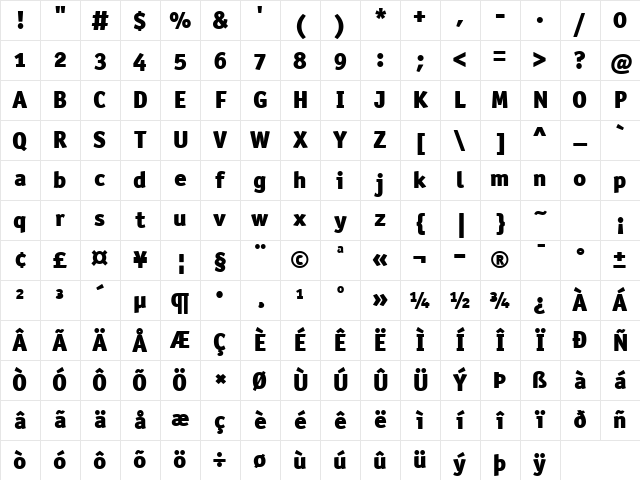
OfficinaSanBlkOSITCTT Black
Foundry: International Typeface Corporation
Designer: Erik Spiekermann/Ole Schaefer
Design Context for OfficinaSanBlkOSITCTT
OfficinaSanBlkOSITCTT is a composed and adaptable typeface that performs quietly and consistently across a wide range of design contexts.